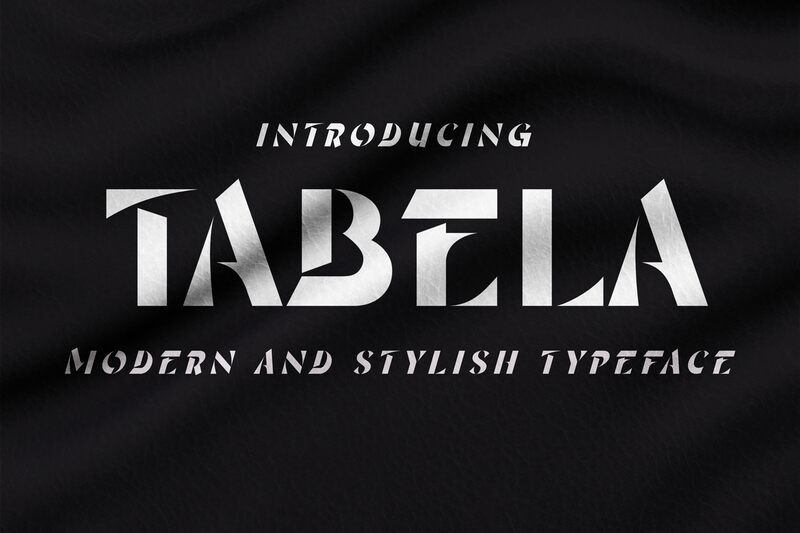
TABELA is a powerful, wide and bold display font designed by 177Studio.com. It has a unique character that can add an extra touch of creativity and style to any project. With its eye-catching look, TABELA is perfect for creating captivating titles, posters, logos and more. Its distinctive design will draw attention to any project and make it stand out from the crowd!
TABELA